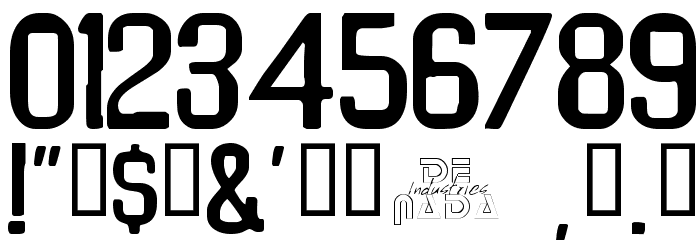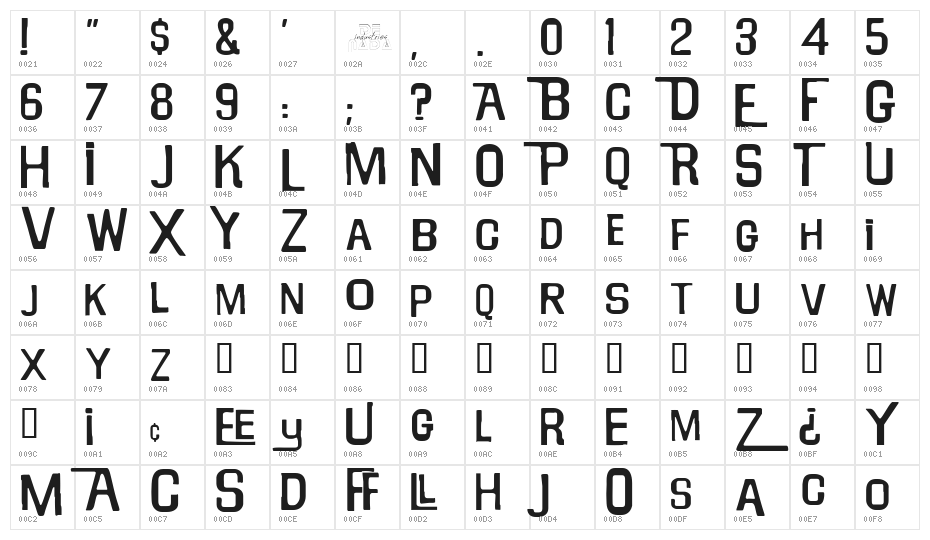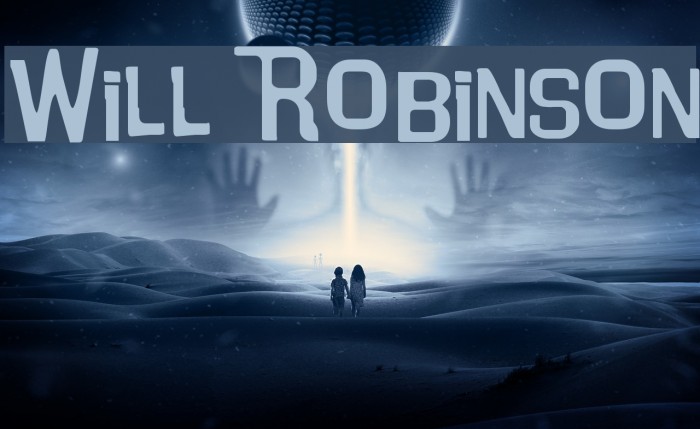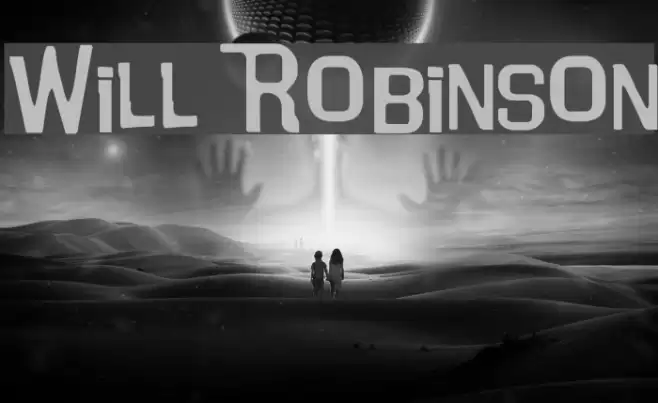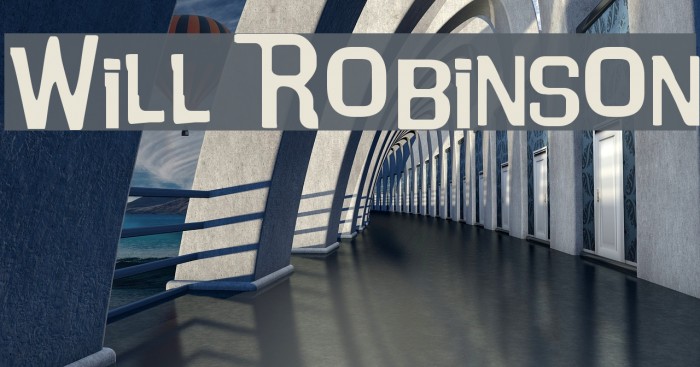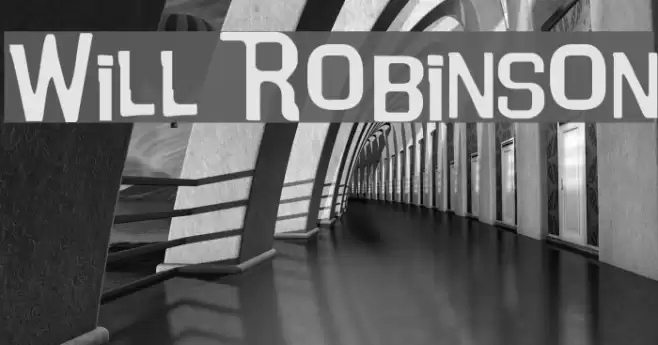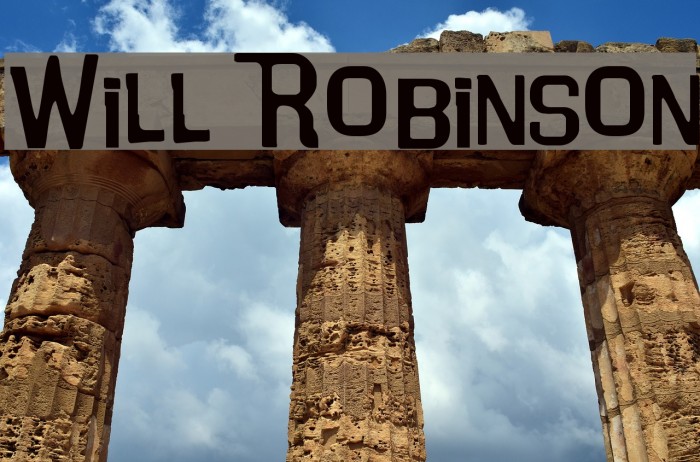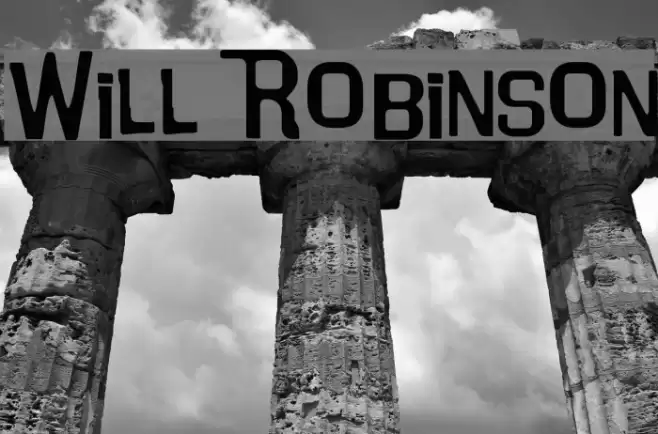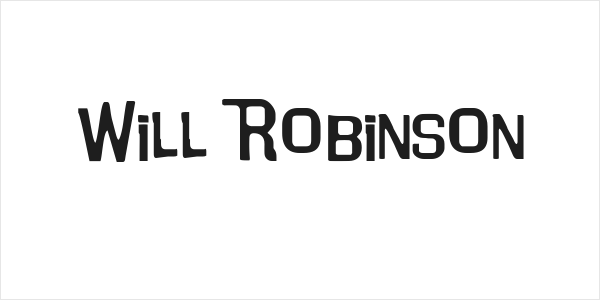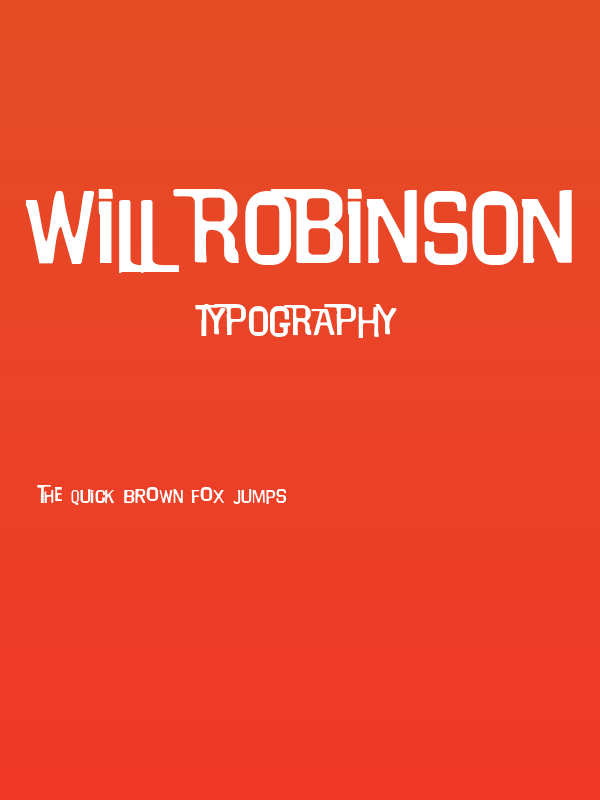
Will Robinson Font
Will Robinson Description
This font features a bold and modern design with a unique geometric structure. The uppercase letters are characterized by their thick, consistent strokes and slightly condensed form, giving them a strong presence. The lowercase letters maintain the same boldness, with a slight variation in height that adds visual interest. The numerals are equally bold, ensuring readability and consistency across different uses. Special characters are designed with the same geometric precision, making them stand out while remaining cohesive with the overall style. This font's distinct appearance makes it suitable for eye-catching designs.